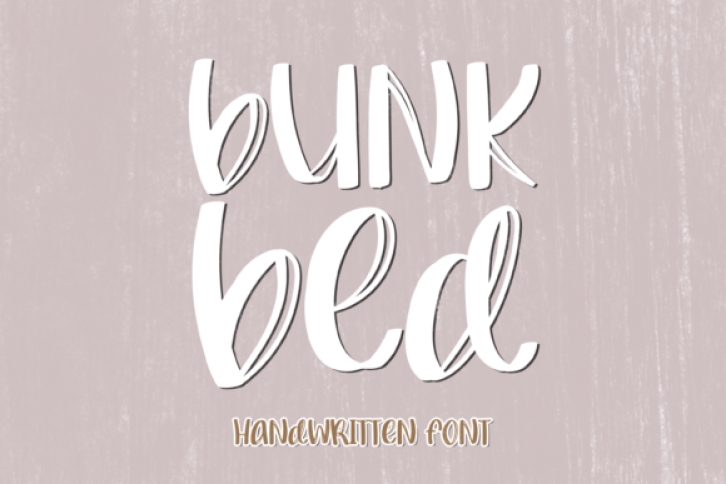
Bunk Bed is a quirky & trendy handwritten font. Get inspired by its incredibly playful feel. Use this font to turn any design project into a standout!